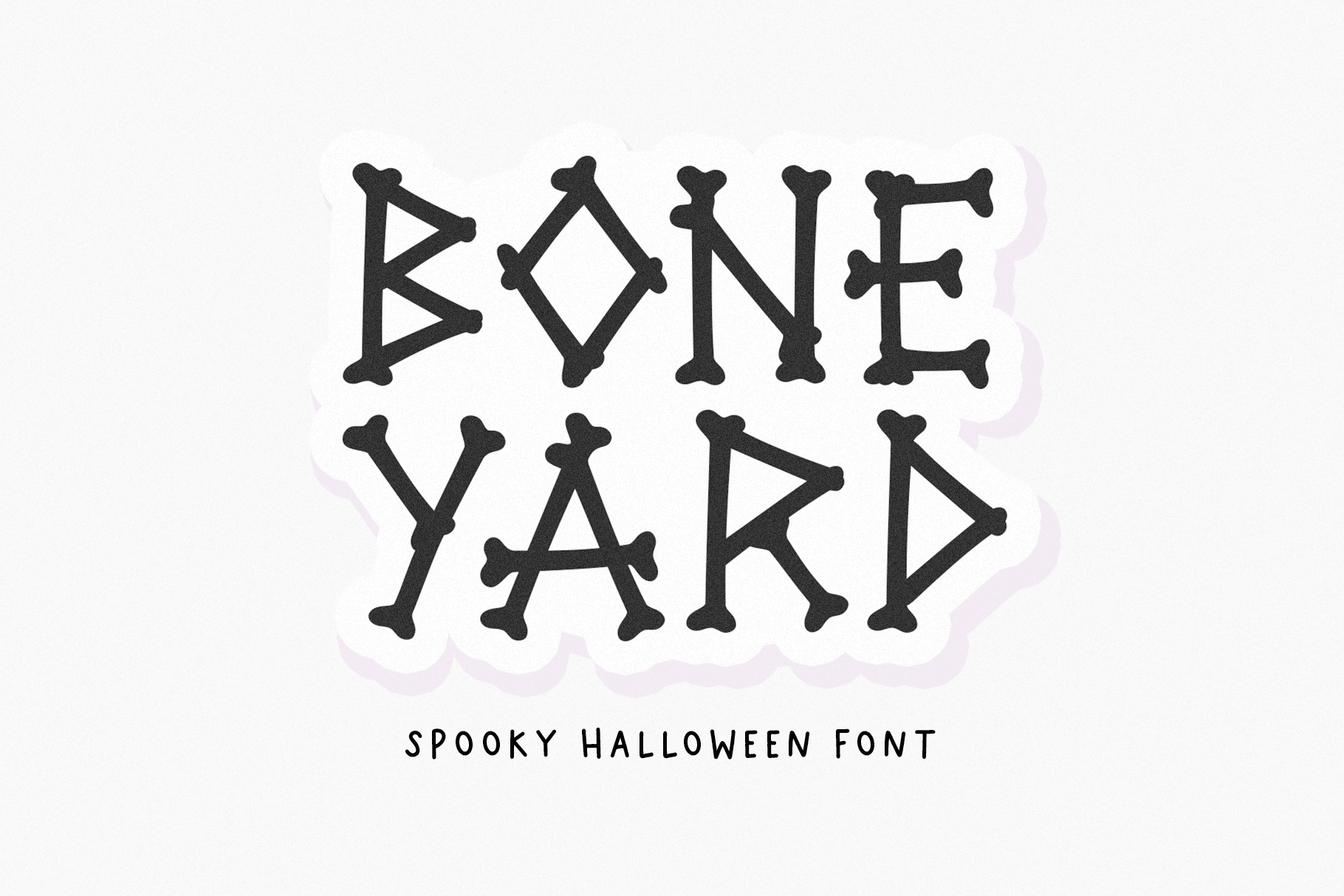
Boneyard | Skeleton Halloween Font
Boneyard is a spooky font perfect for your halloween designs!
Use this font for shirts, logos, doormats, stickers, procreate designs, instagram quotes, spooky svg files and more!